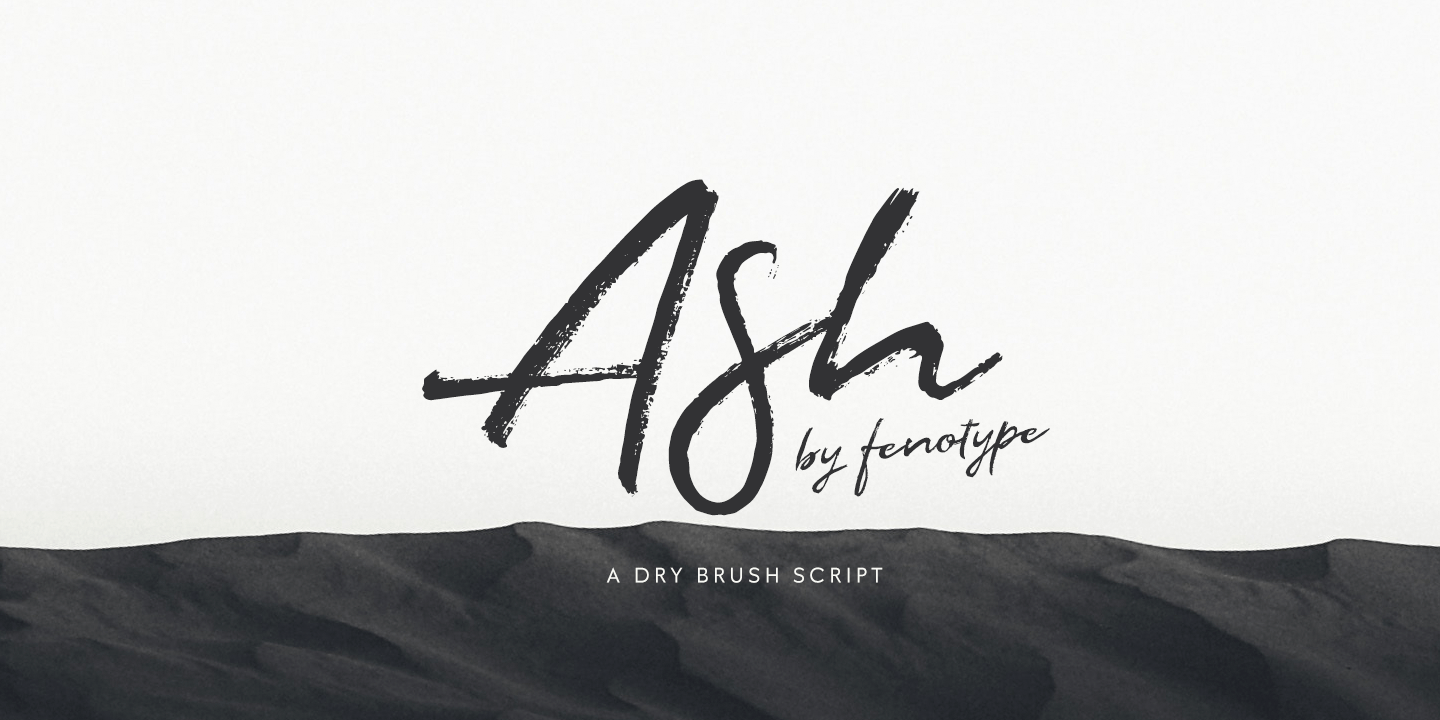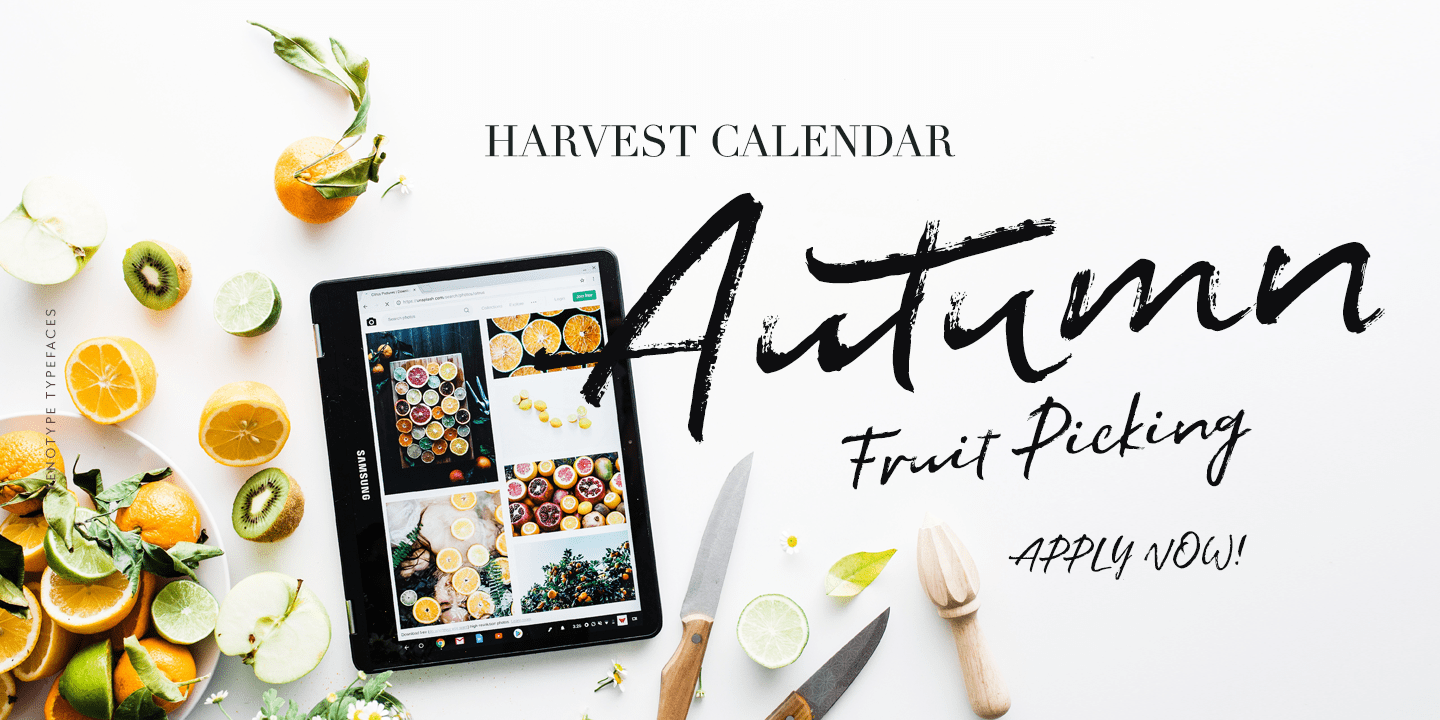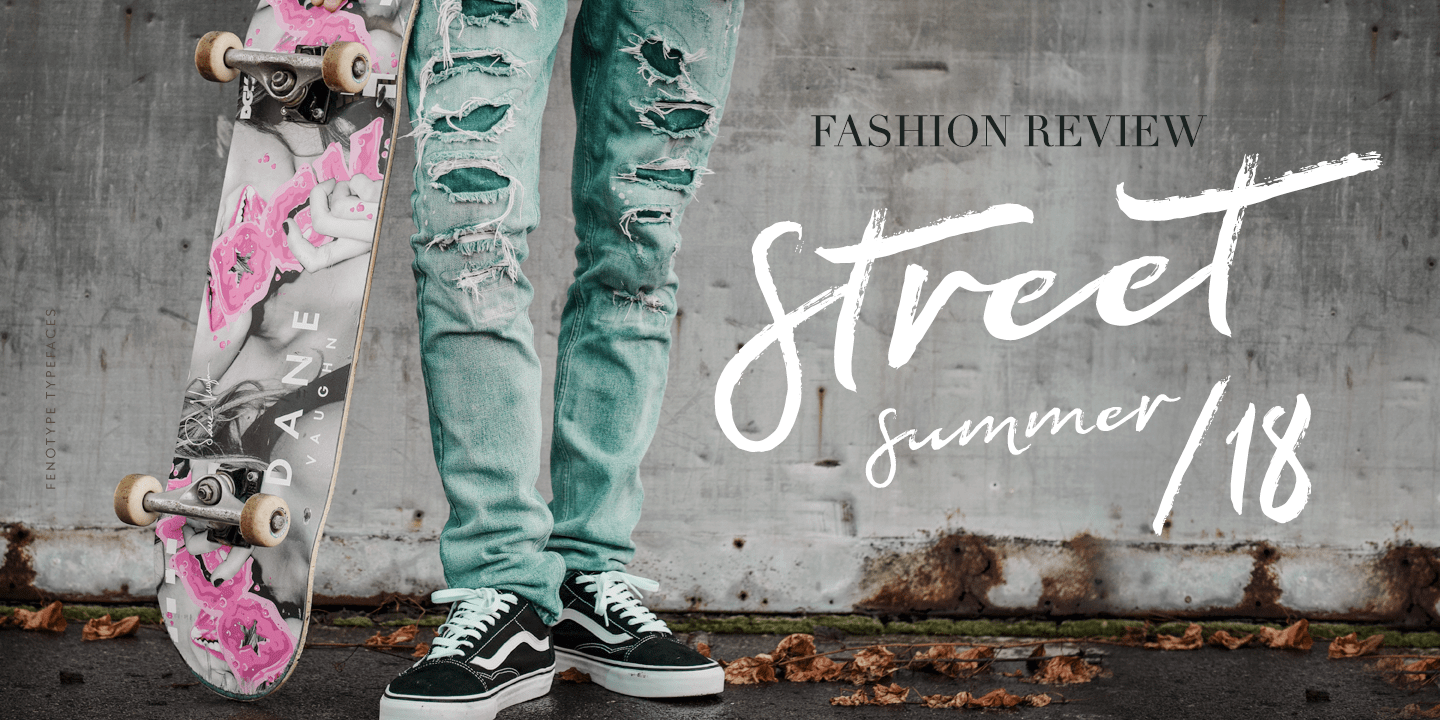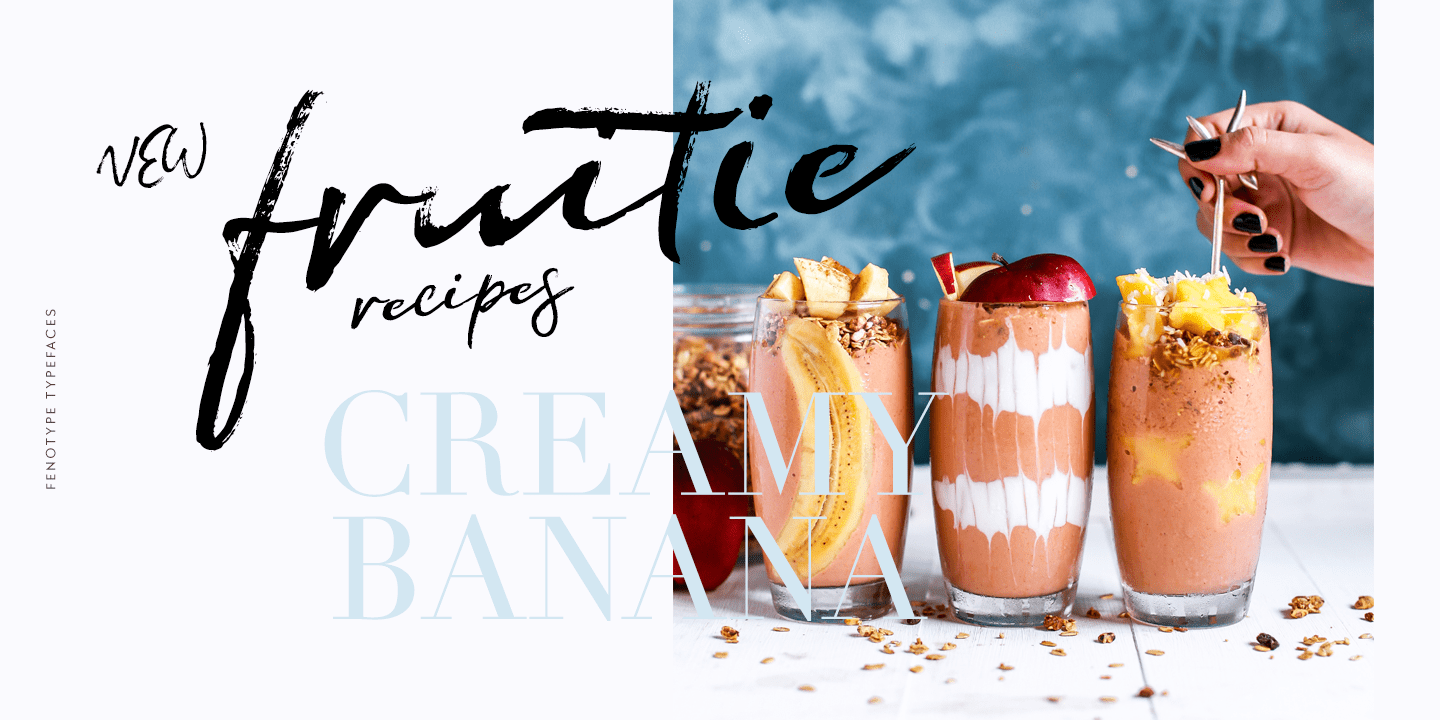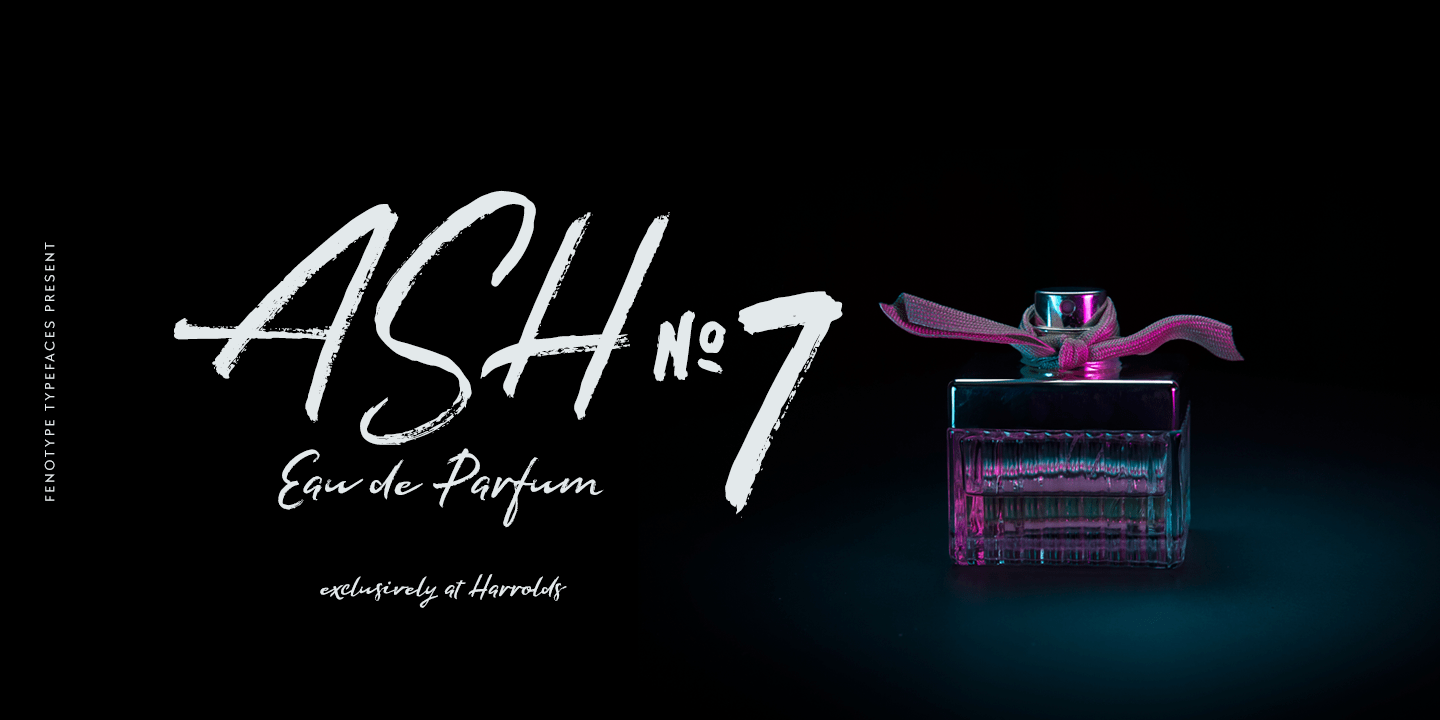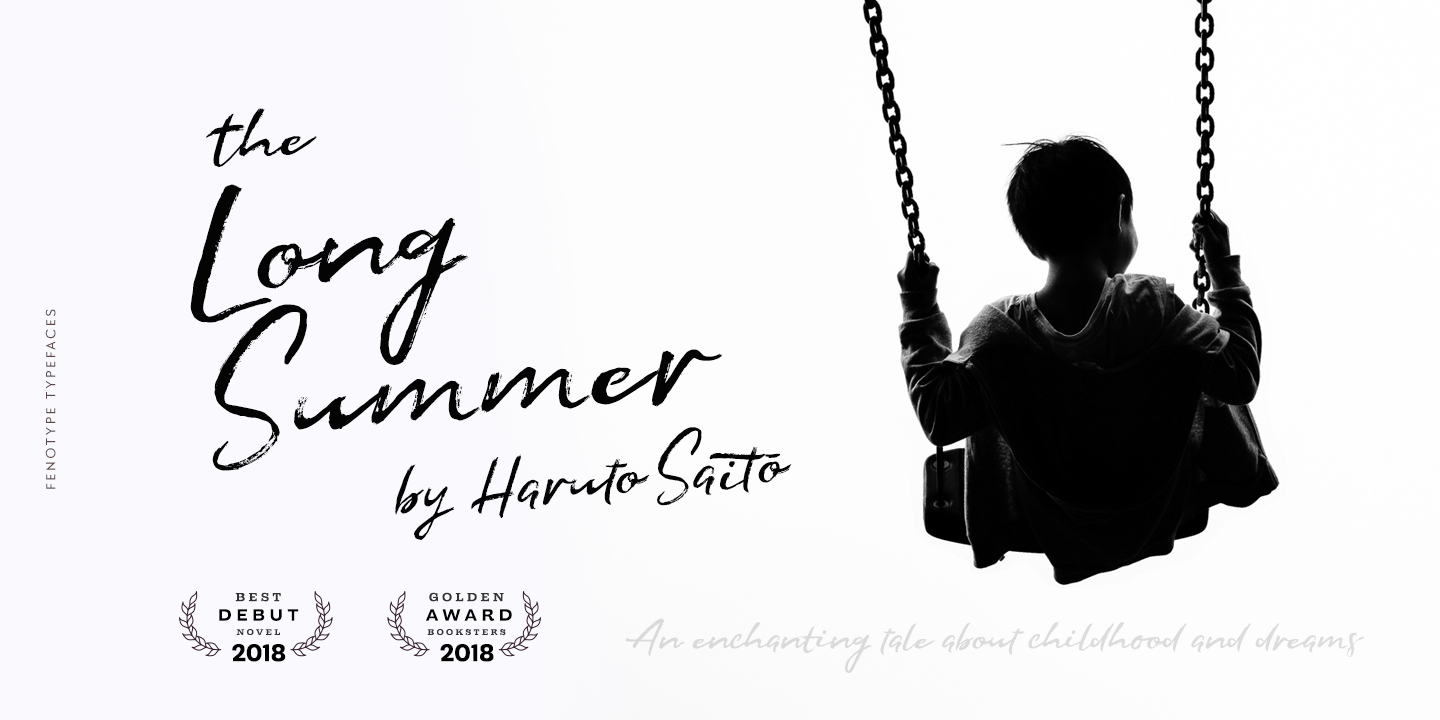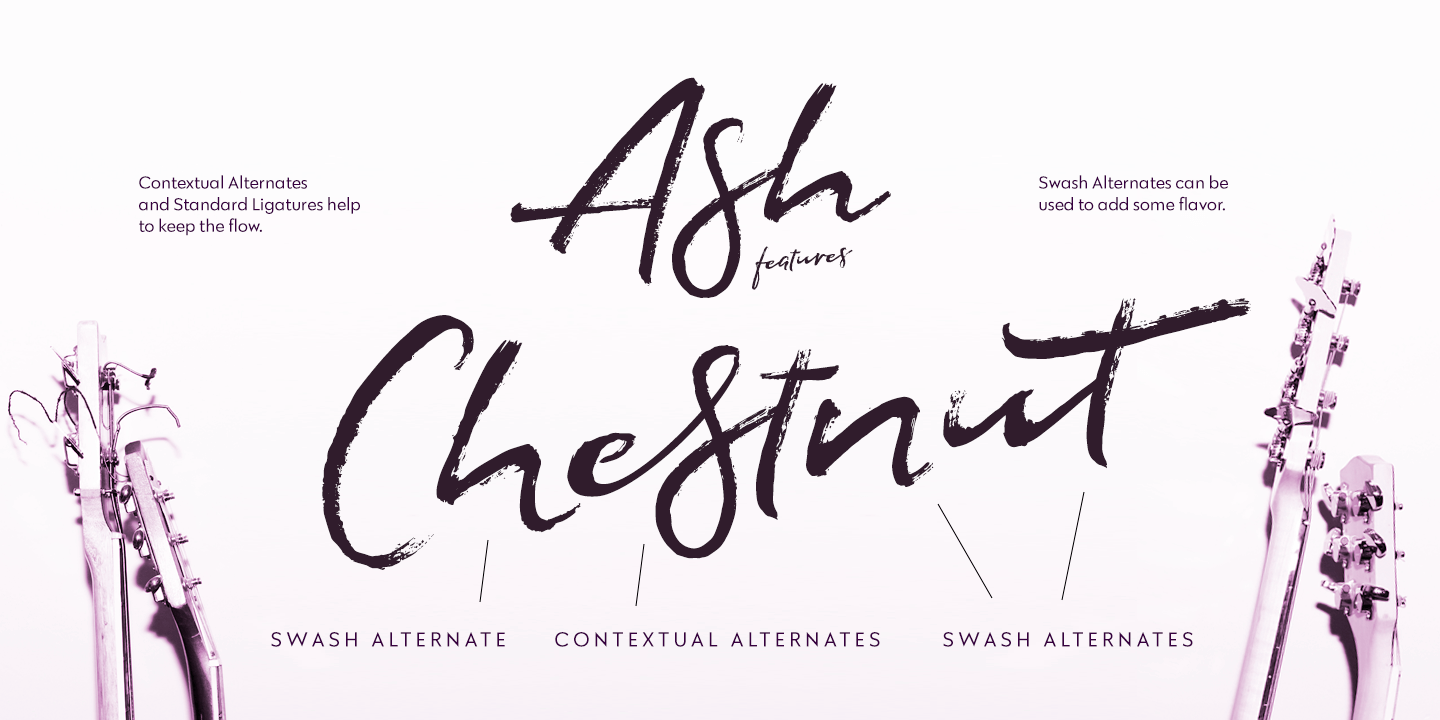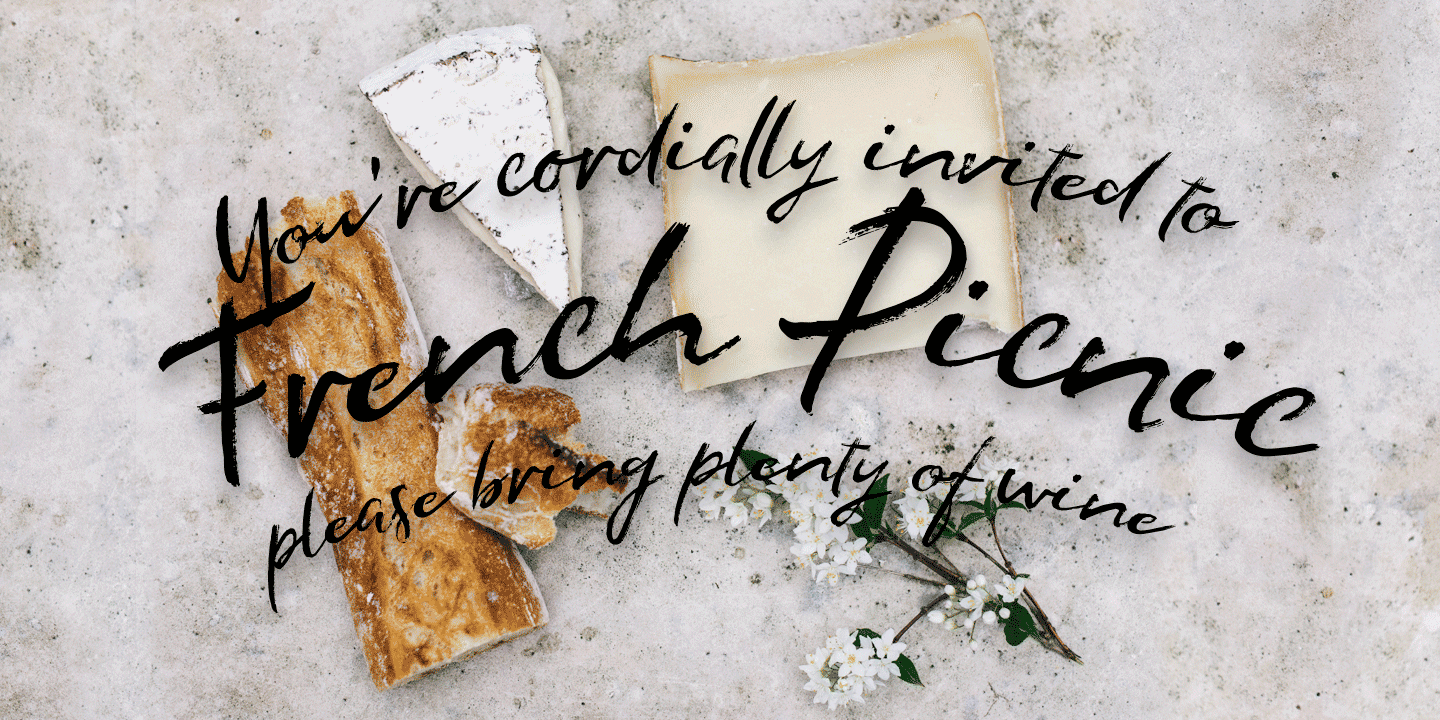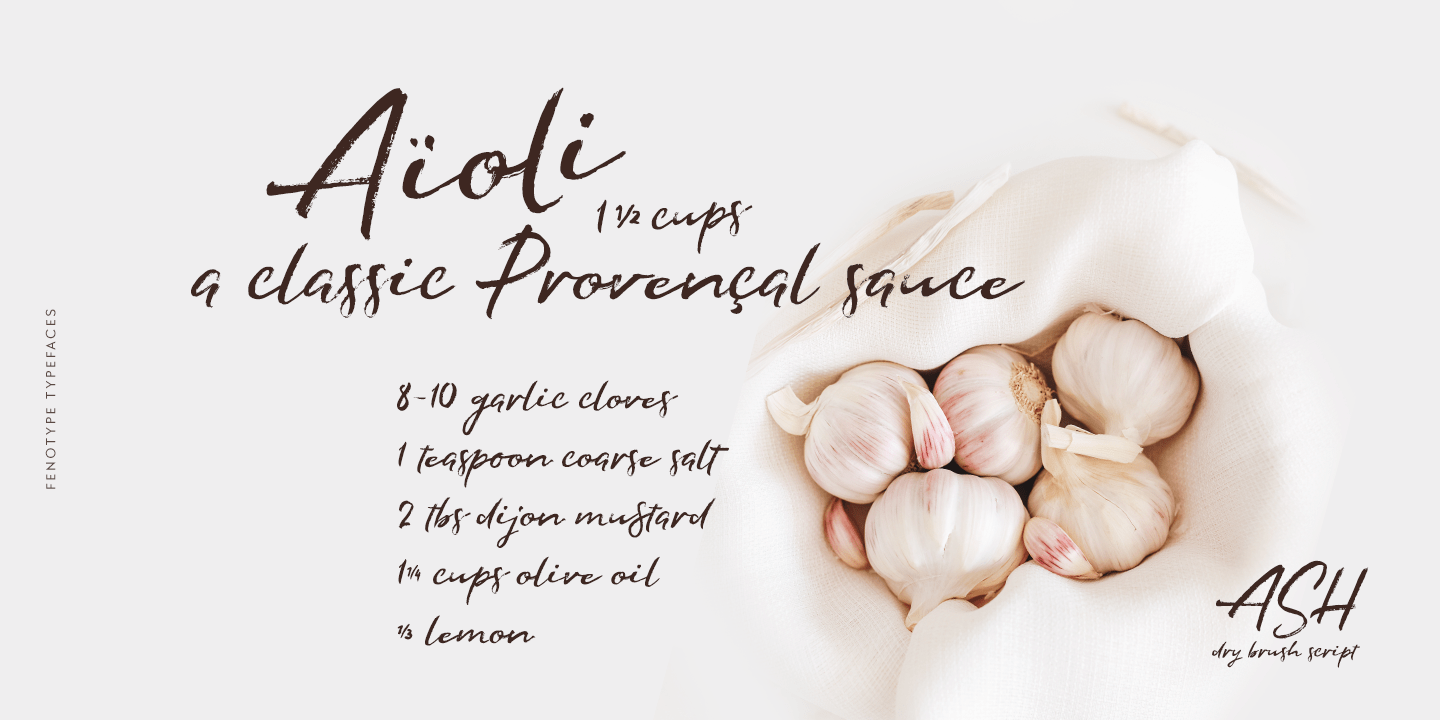
Ash
Ash is a script font hand drawn with dry brush. Ash is packed with automatic Contextual Alternates that keep the text vivid. Ash also has Swash alternates for lowercase letters that add extra flavour. In Titling Alternates there's 26 swooshes and strokes placed in a-z that can be used as underlines or just decorations.
Ash is great display font for a swift hand drawn look.
Ash has wide language support and it is PUA encoded so you can access extra glyphs in most graphic design softwares.